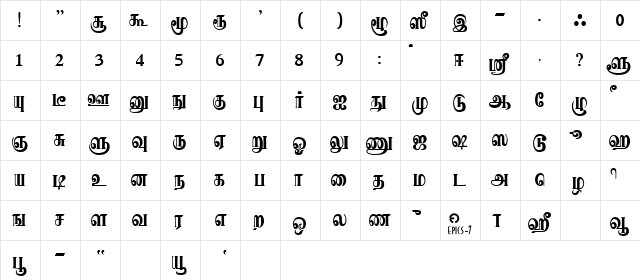
Karaharapriya Regular
Design Context for Karaharapriya Typeface
Karaharapriya takes a measured approach to typography — its balanced proportions and neutral character make it a reliable workhorse for both digital and print work.